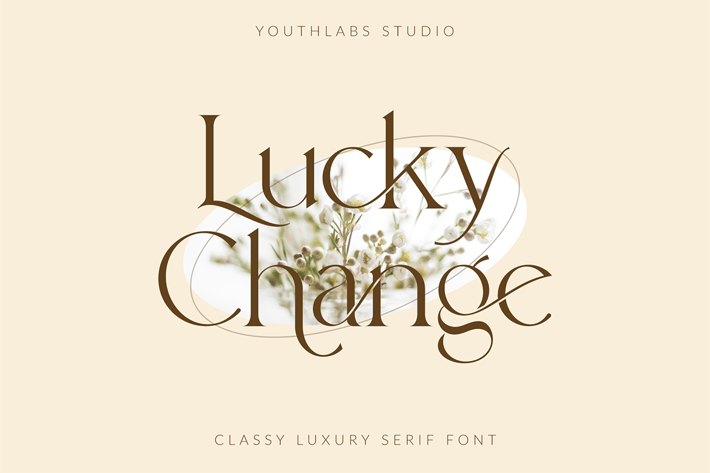
Lucky Change - Luxury Serif Font
Introducing Lucky Change Font - A Brand New Serif Font with Classy and Premium Shape, More Opentype Feature, more neat curves
Lucky Change Font Inspired by Simply and Luxury Typography. Lucky Change Font is a very versatile font. you can use this font to various design. Basics can improve more than 200 alternates character where can collaborate with premade logos and vector pack
What's the Feature ?
Uppercase & Lowercase Alternate
Ligatures
Stylistic Alternate
Lucky Change Font Inspired by Simply and Luxury Typography. Lucky Change Font is a very versatile font. you can use this font to various design. Basics can improve more than 200 alternates character where can collaborate with premade logos and vector pack
What's the Feature ?
Uppercase & Lowercase Alternate
Ligatures
Stylistic Alternate